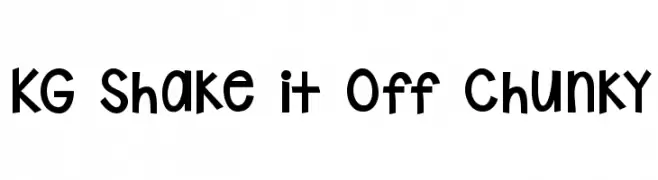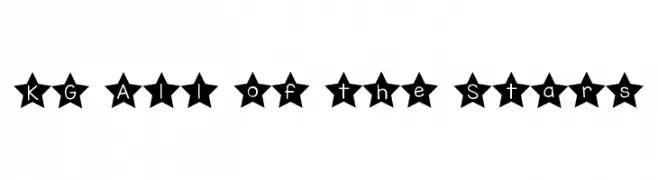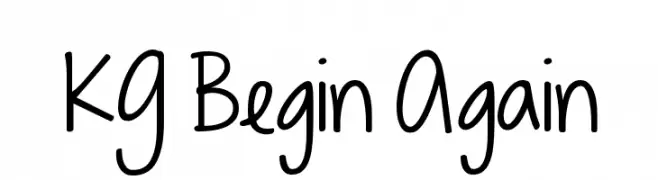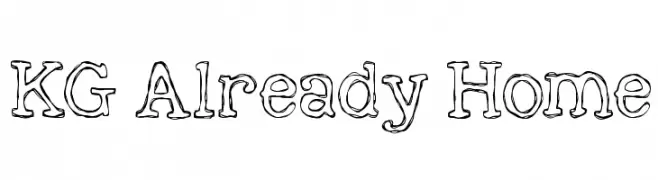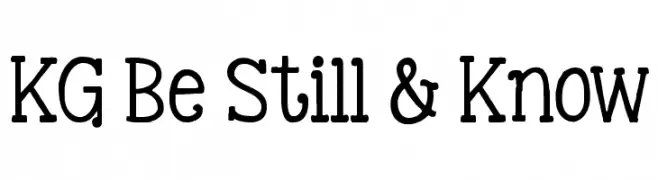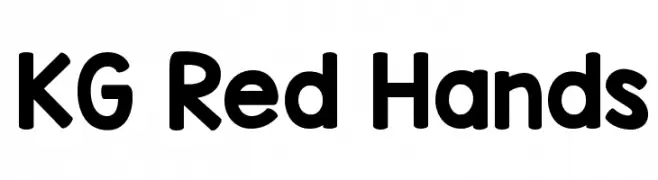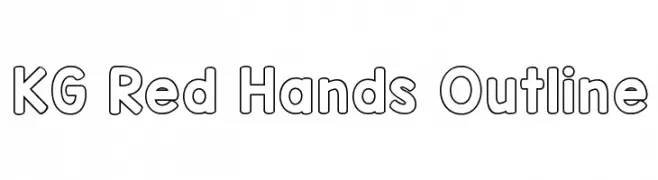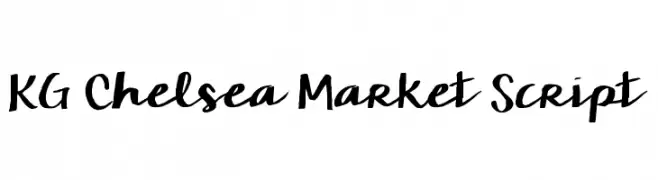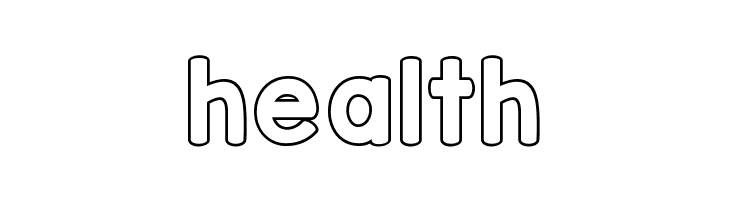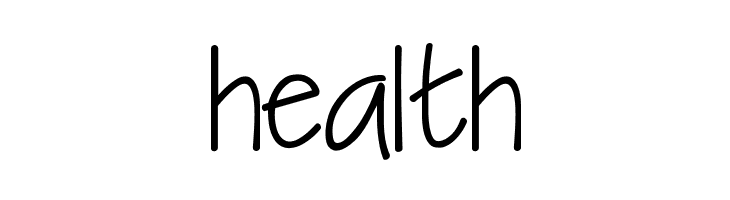
A playful, bold, and chunky font with a whimsical style.
A decorative font with characters enclosed in bold star shapes, perfect for playful designs.
A playful, handwritten font with smooth, rounded edges and a friendly appearance.
A playful, hand-drawn font with a unique outline effect.
A playful, rounded font with bold, smooth curves and consistent spacing.
A playful, bold outline font with rounded edges and a bubble-like appearance.
A playful, handwritten-style font with flowing, cursive-like strokes.